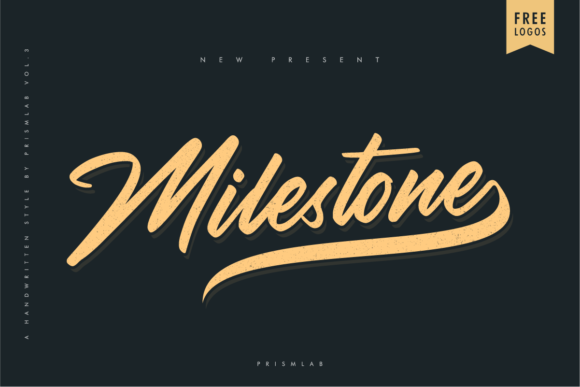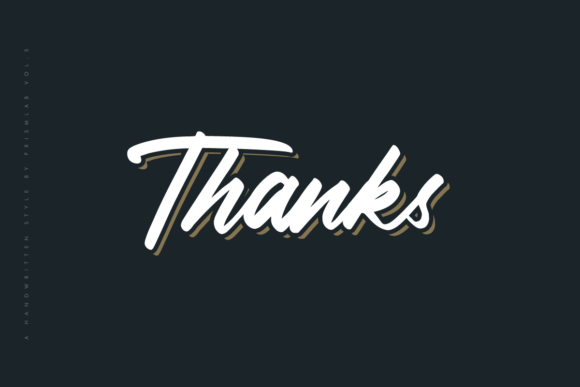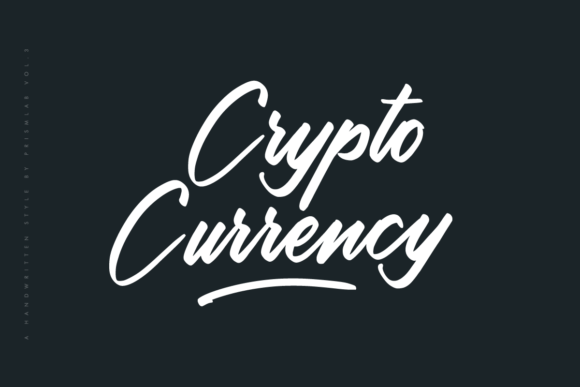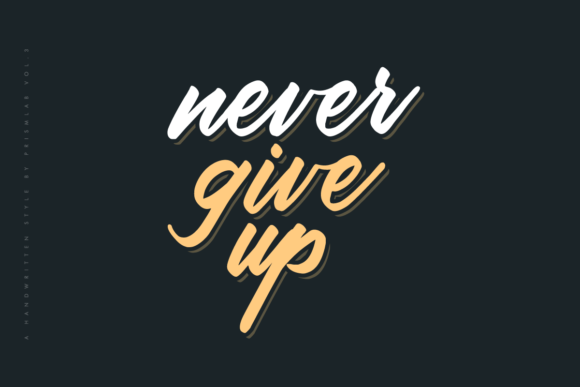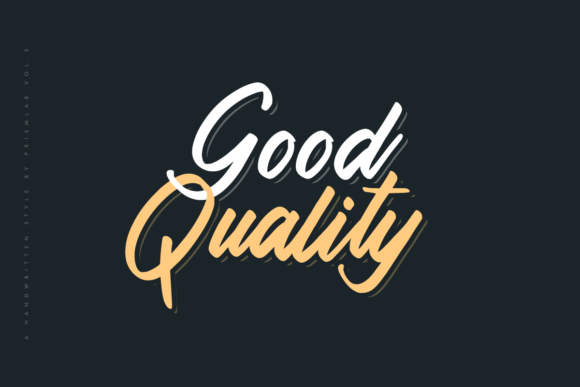
About Milestone Font
Milestone is a gorgeous and bold handwritten font, crafted to give your headlines and logotype projects a stylish touch. This font reads as strong, confident, and dynamic and can add tons of nostalgic character to your designs.